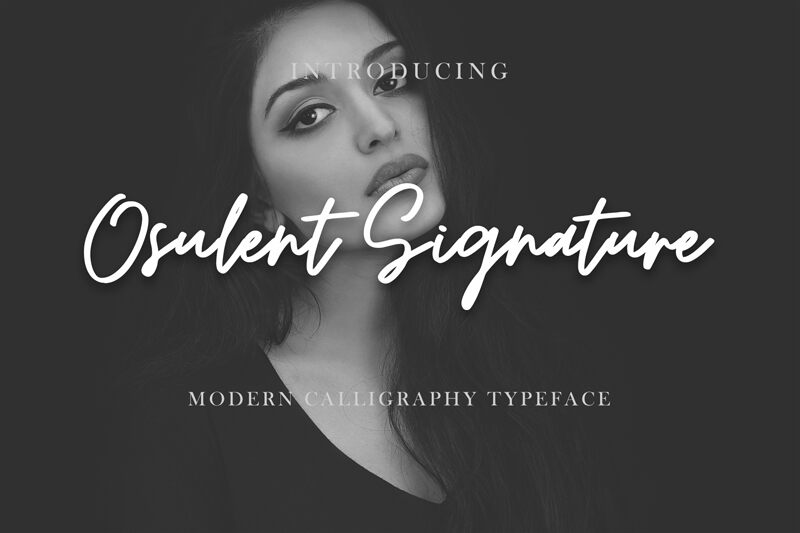
Osulent Signature is a captivating handwritten font that exudes sophistication and elegance. Crafted with a flowing, calligraphic style, this font seamlessly blends modern and traditional elements, resulting in a unique and versatile design.
The fluid strokes and graceful curves create a sense of movement and fluidity, making Osulent Signature an ideal choice for branding, invitations, and other high-end design applications. Its distinctive personality lends an air of exclusivity and distinction to any project, whether it's used for a luxurious product launch or a bespoke wedding invitation.
Osulent Signature